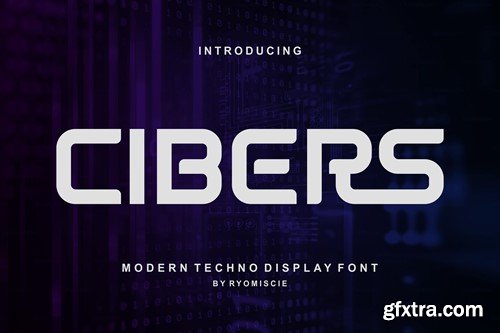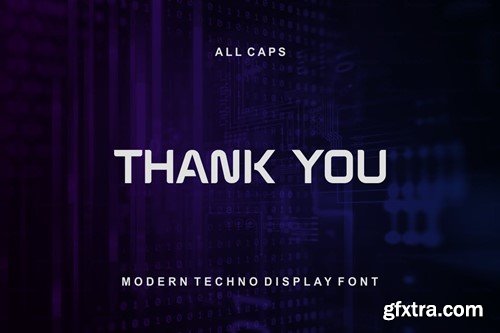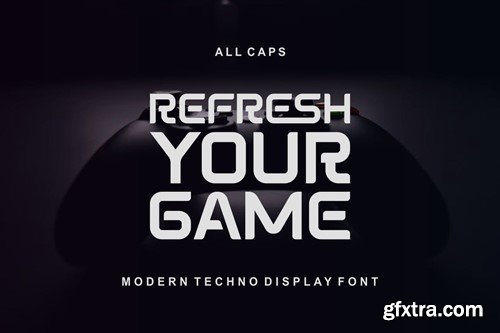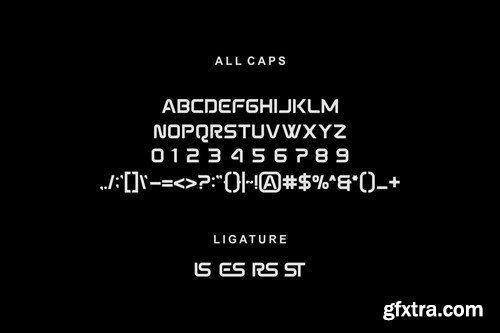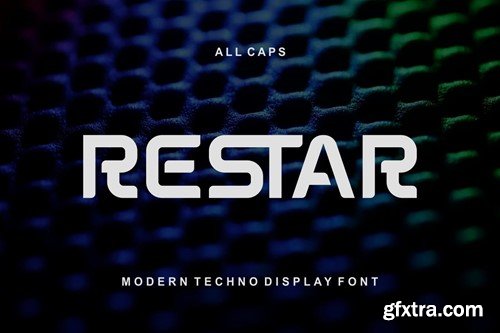
Cibers - 现代 techno 展示字体 BWT5NG8
Cibers - Modern Techno Display Font
Introducing our new product Cibers Font - Modern Techno Display Font Cibers Font - Modern Font is a bold and authentic display font. The font is suitable for any branding project like logo, t-shirt printing, esport, and many more. outstanding in a wide range of contexts. availlable